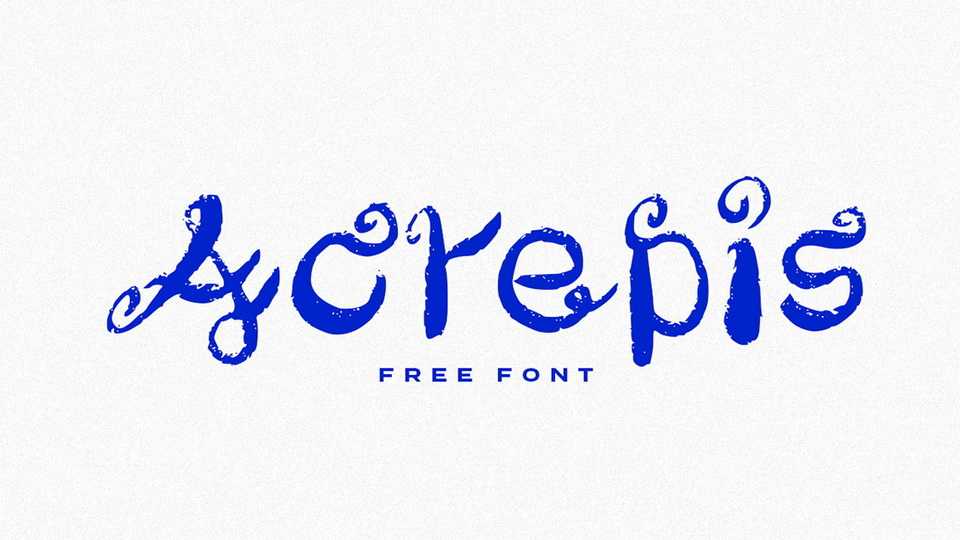
Download Acrepis font, a fancy hand-drawn typeface created using Procreate on the iPad. The final result is a playful font with a greek look.
Designer: Luis H. J. Rapp